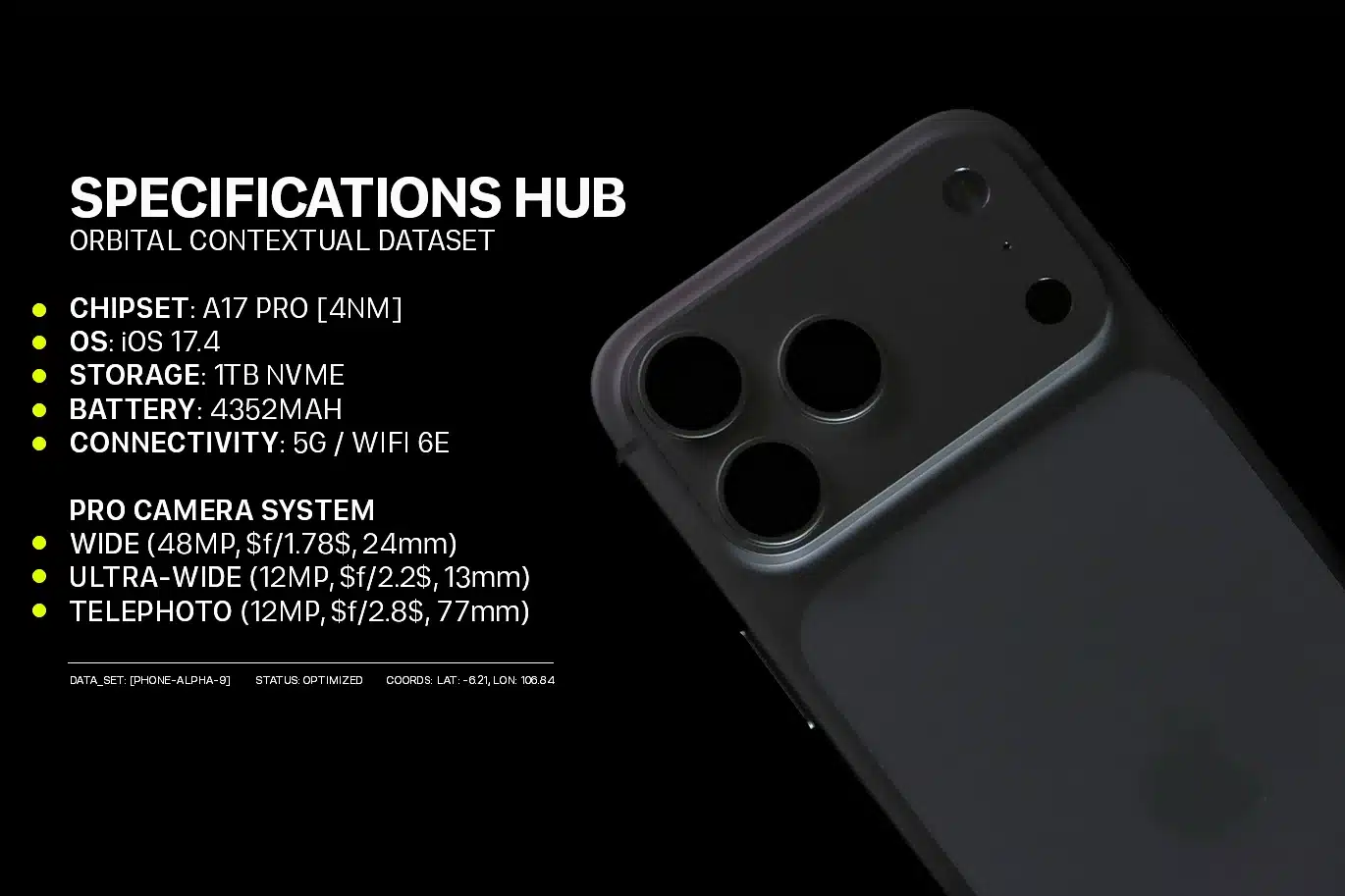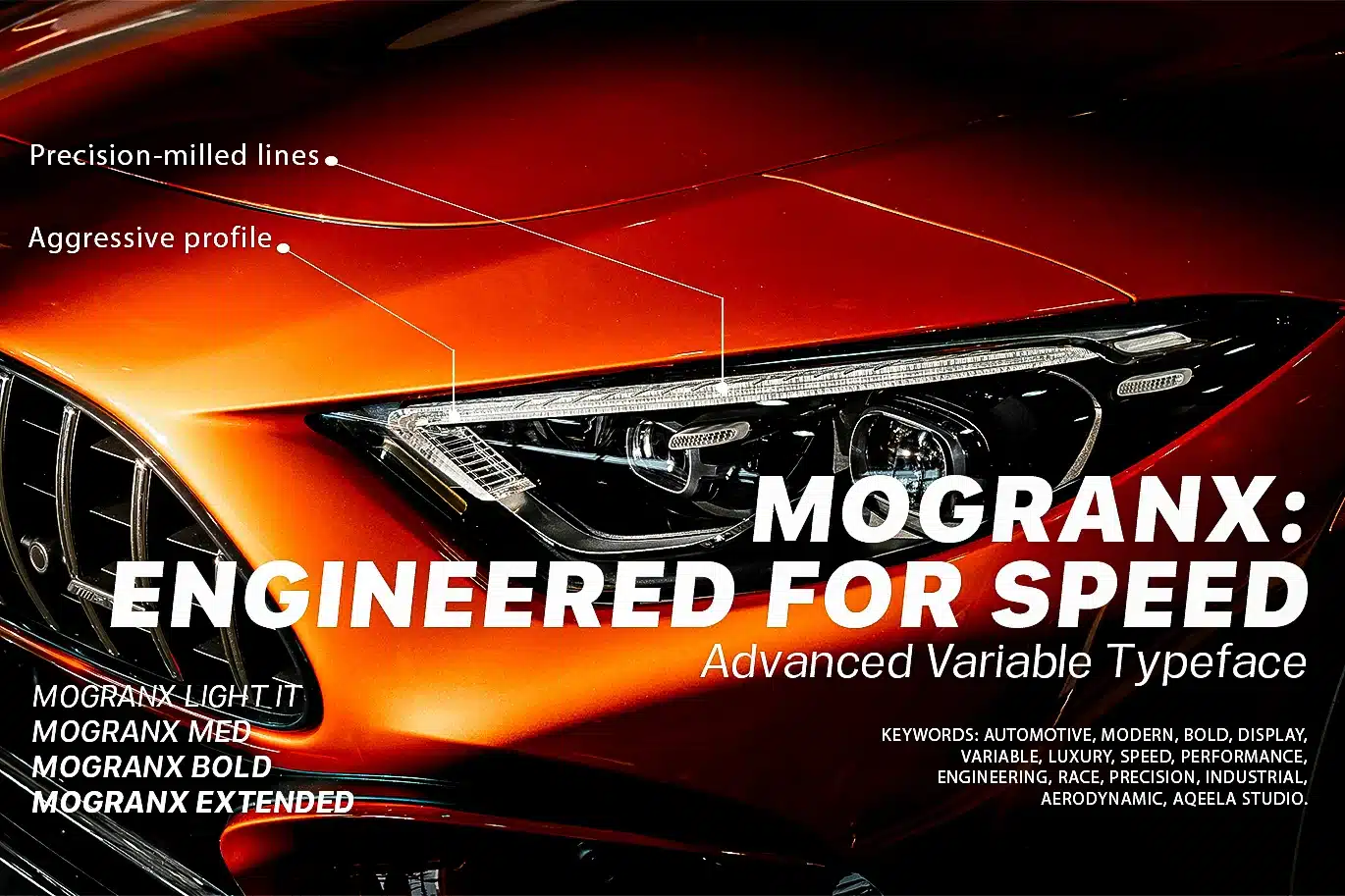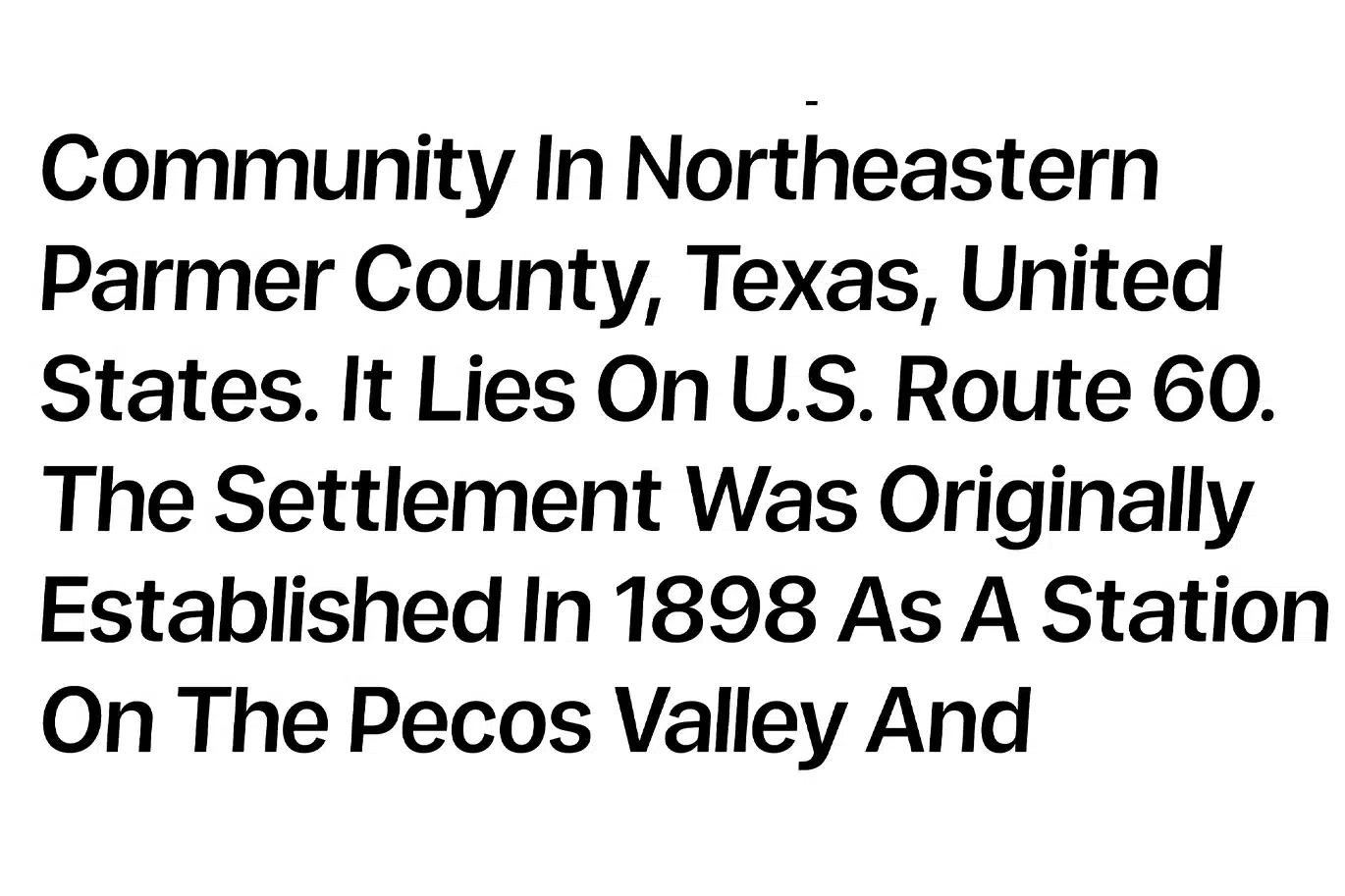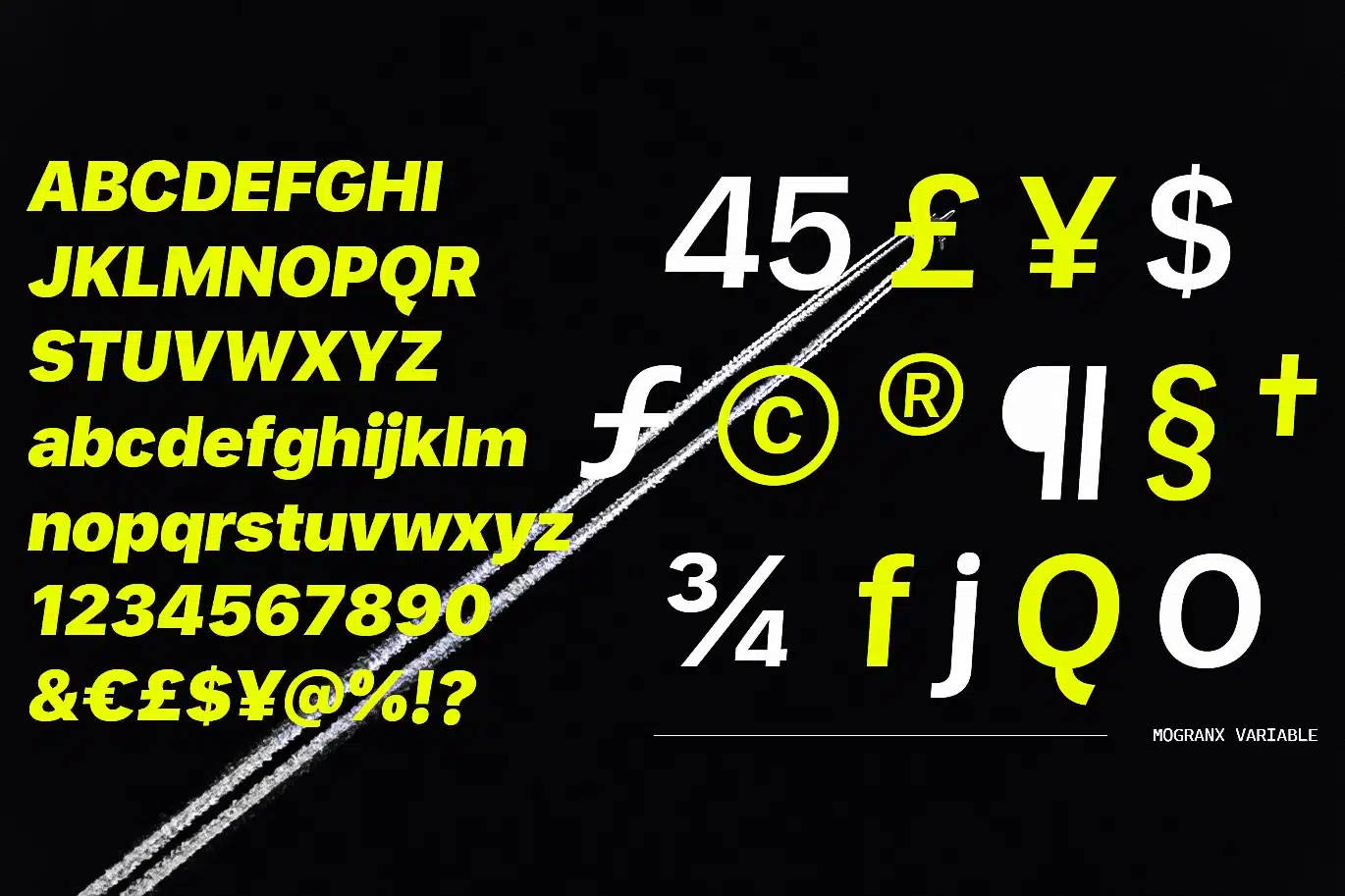
Mogranx Font
Mogranx - Modern Variable Sans Serif
Mogranx is a powerhouse sans-serif family designed for ultimate flexibility. Built with cutting-edge Variable Font technology, Mogranx allows you to precisely control weight and slant within a single file, offering dynamic adaptability for any professional design project.
Drawing inspiration from high-end editorial layouts and modern "Brutalist" aesthetics, this font features bold, clean lines and exceptional legibility. Whether you are working on high-impact branding, sophisticated magazine spreads, or futuristic web headers, Mogranx provides the "infinite possibilities" your creative work demands.
Core Features:
• Variable Font Technology: Seamless control over Weight (100-900) and Slant (0-8) axes.
• Precision Geometry: Clean, impactful characters designed for modern visual identities.
• Multilingual Support: Extensive character set covering a wide range of Latin-based languages.
Best Suited For:
• Editorial Design & Fashion Magazines.
• High-Impact Branding & Logo Identity.
• Social Media Graphics & Typography Posters.
• Modern UI/UX Interfaces.
• Brutalist and Minimalist Creative Projects.